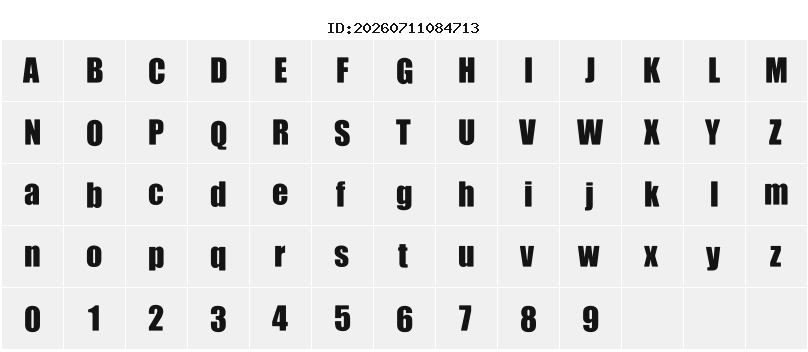
About HanWangGSolid04stb1.ttf
HanWangGSolid04stb1.ttf is a modern, elegant sans-serif font designed for ultimate readability and visual harmony. Perfect for branding, headlines, web design, and print materials.